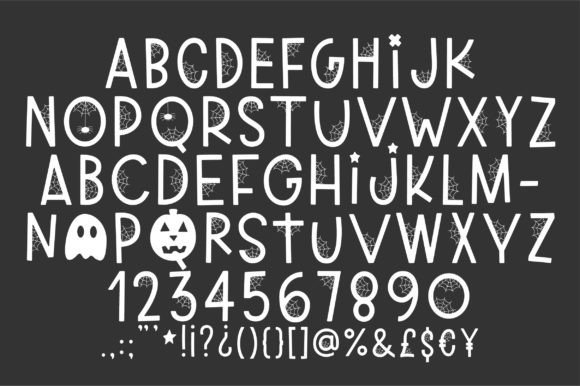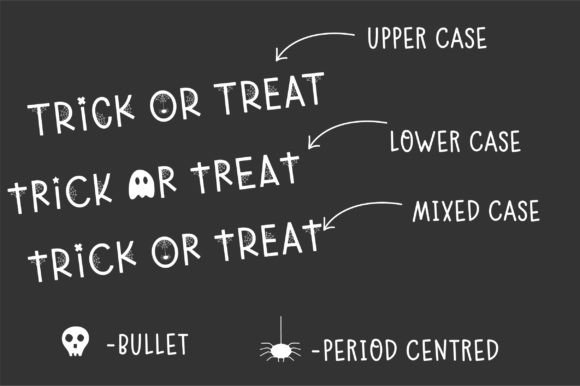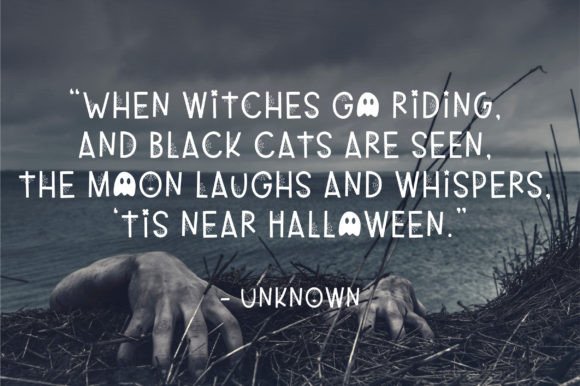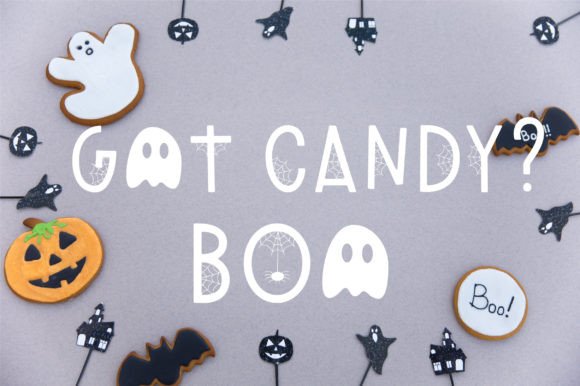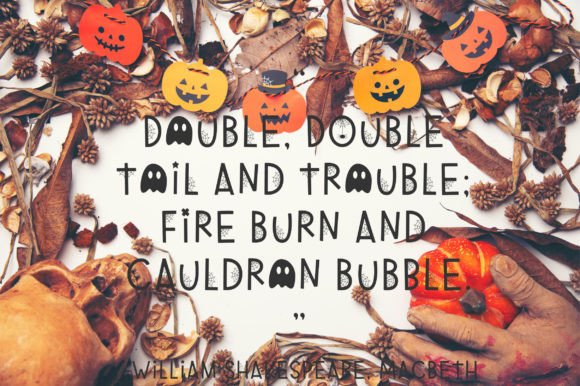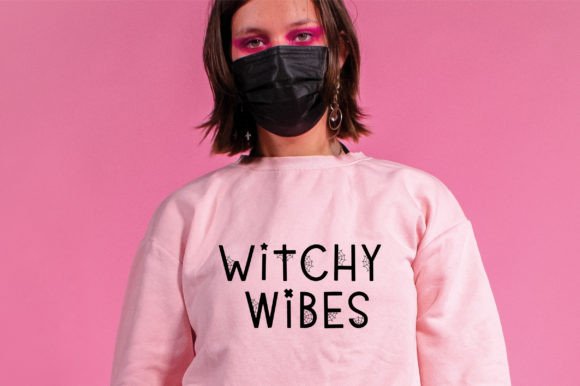
Introduction to Incy Wincy Font
As the sun sets on a crisp October evening, and the air is filled with the sweet scent of pumpkin spice, we can’t help but feel the excitement of the Halloween season. It’s the perfect time to unleash your creativity and let your imagination run wild with spooky projects, decorations, and designs. For designers, this is the moment to shine and add a touch of magic to your creations. And what better way to do that than with a font that screams fun and playfulness – the Incy Wincy Font?
This all-uppercase handwritten font is a treasure trove of creative possibilities, waiting to be unleashed on your design projects. With its high-quality design and transparent background, the Incy Wincy Font is a valuable resource for any designer looking to add a unique touch to their work. Whether you’re working on a Halloween-themed design or simply want to add some whimsy to your projects, this font is sure to be a game-changer. And the best part? It’s available for free download, making it an essential design resource for any creative project.
Key Features of Incy Wincy Font
- Transparent background for seamless integration with any design
- High-quality design resource perfect for creative projects
- Designed with precision and attention to detail for a professional look
- Unique, handcrafted design that sets your project apart from the rest
Honest Review: Incy Wincy Font
As a designer, I was excited to give the Incy Wincy Font a try. The first thing I noticed was its high quality design, perfect for any creative project.
One of the standout features of the Incy Wincy Font is its versatility. It can be used for a wide range of applications, from digital designs to print materials. ✨ I found it particularly useful for creating visually appealing headings and titles.
- Transparent background support
- High quality design
However, I did encounter some limitations while using the Incy Wincy Font. For instance, it’s not suitable for all text-based applications due to its unique design. ⚠️ This might limit its use in certain contexts.
Overall, I was impressed with the Incy Wincy Font. It’s a valuable design resource that can add a touch of sophistication to any project. While it may not be perfect for every application, it’s definitely worth considering for your next creative project.
The Incy Wincy Font is a high-quality design resource that can elevate any creative project. It features a transparent background, making it easy to incorporate into various designs.
The Incy Wincy Font is commonly used in:
- Graphic design projects.
- Web design projects.